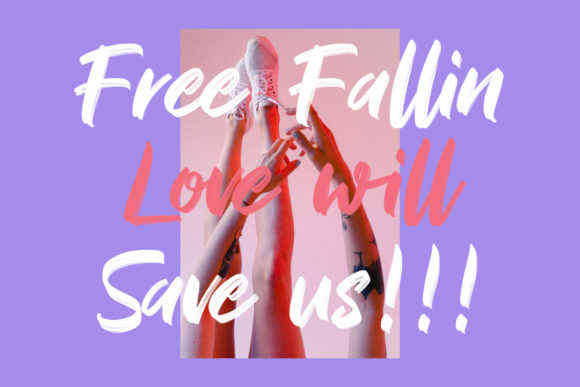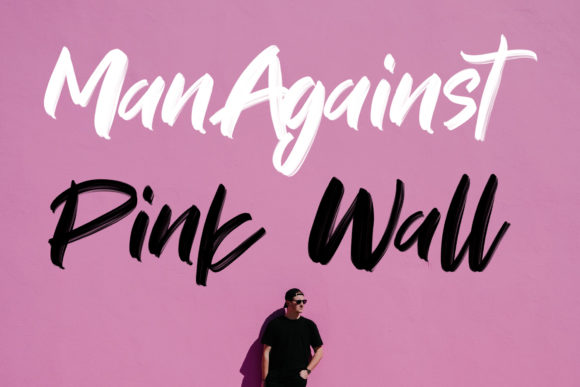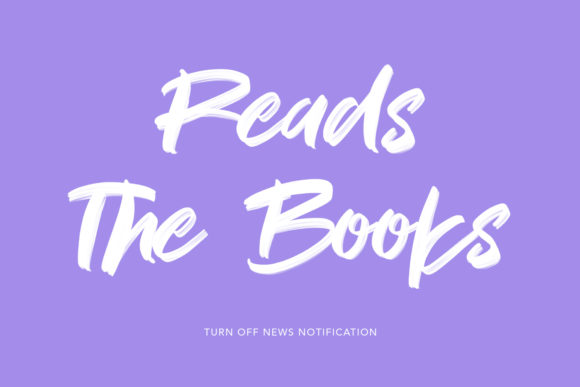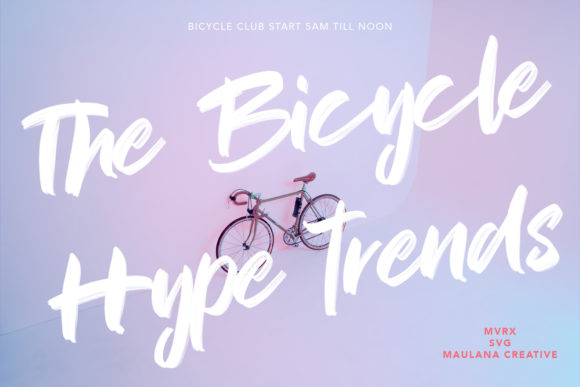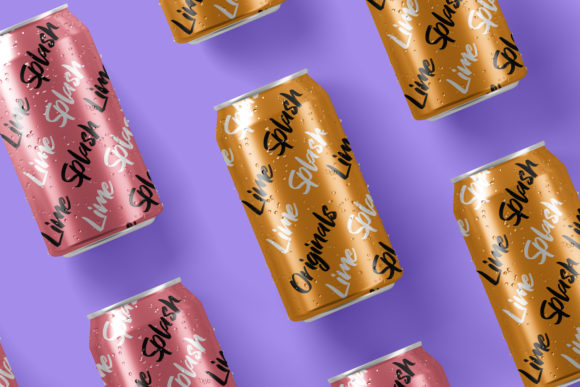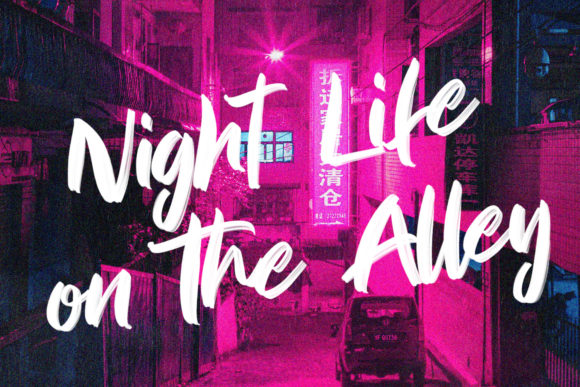
Introduction to Maverix Font
Maverix is a cool, relaxed and urban styled display font.
Whether you are using it for cartoon-related designs, childrenโs games, quotes, titles, brand names, book covers, posters, or just any creation that requires a touch of beauty, this font is a great choice .